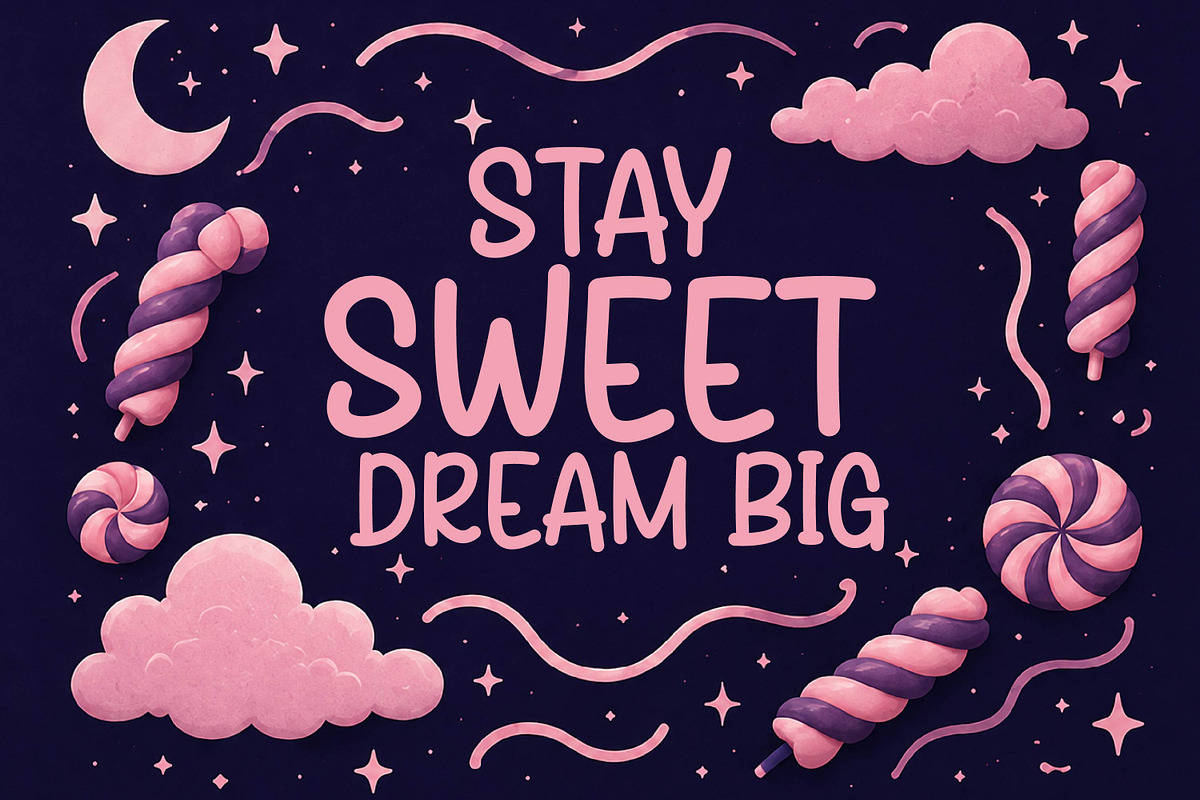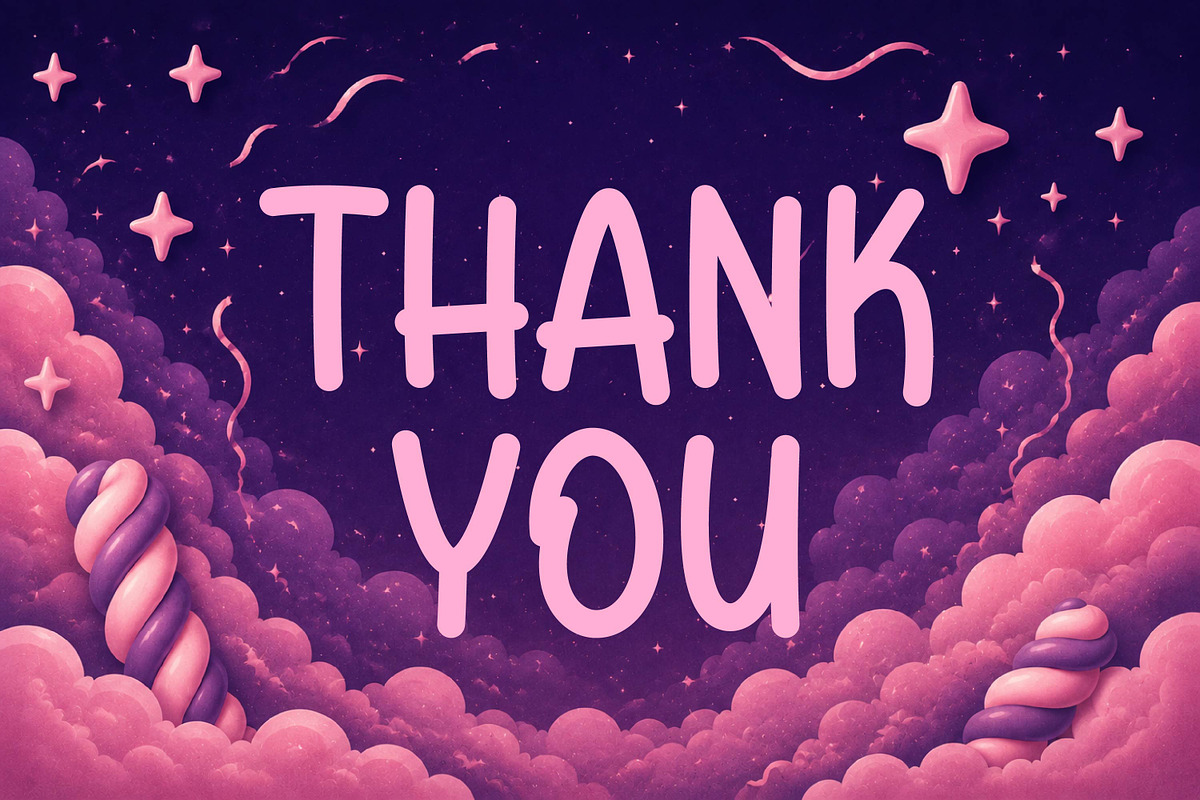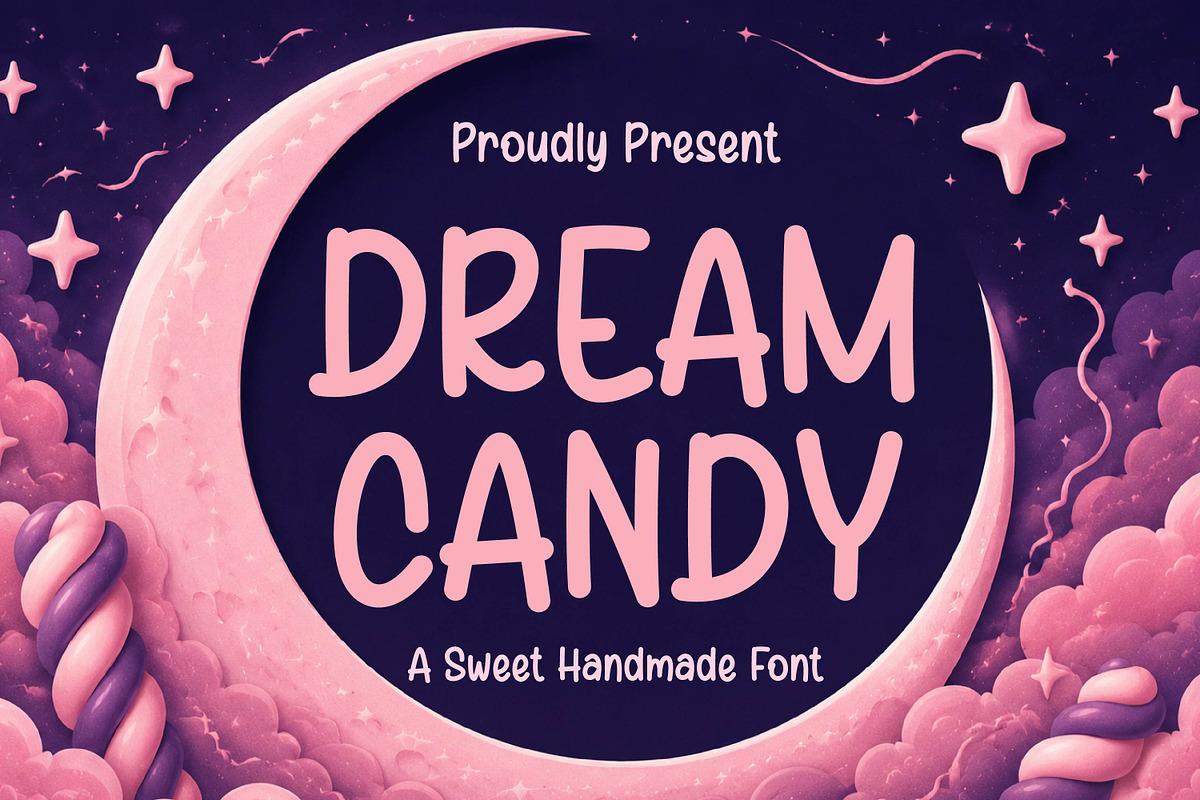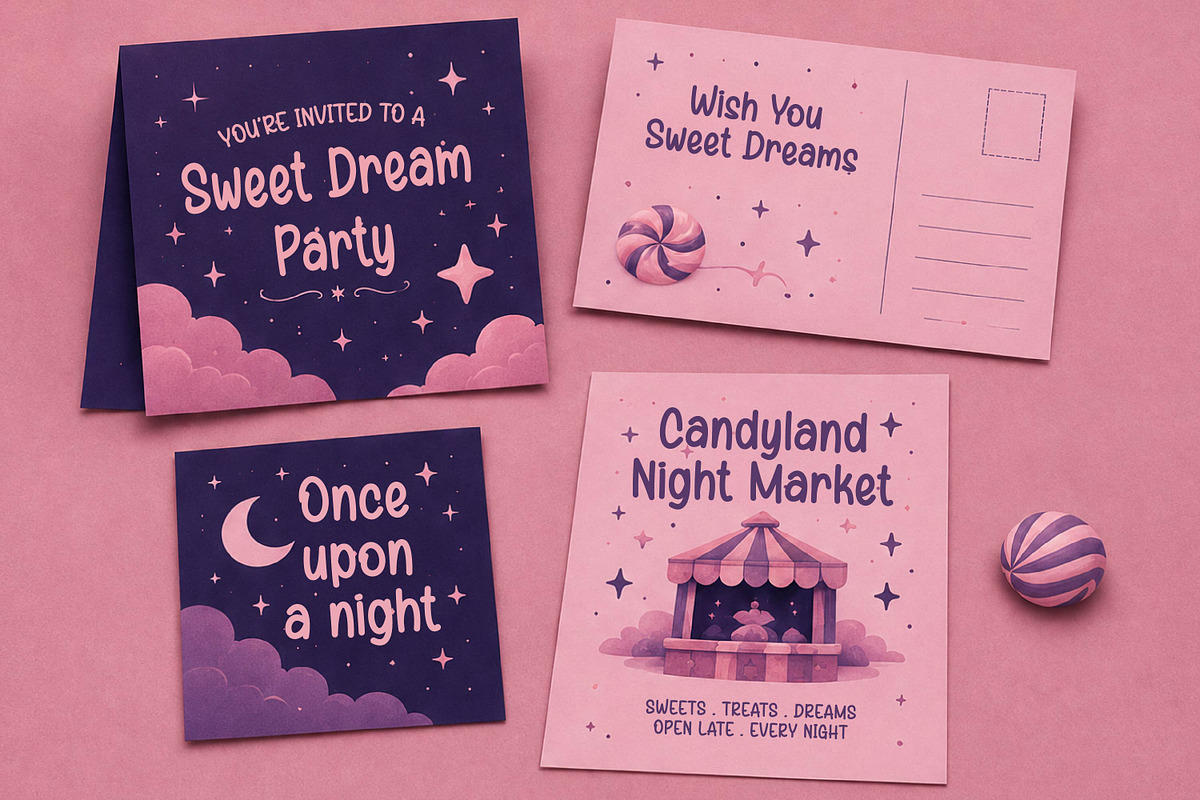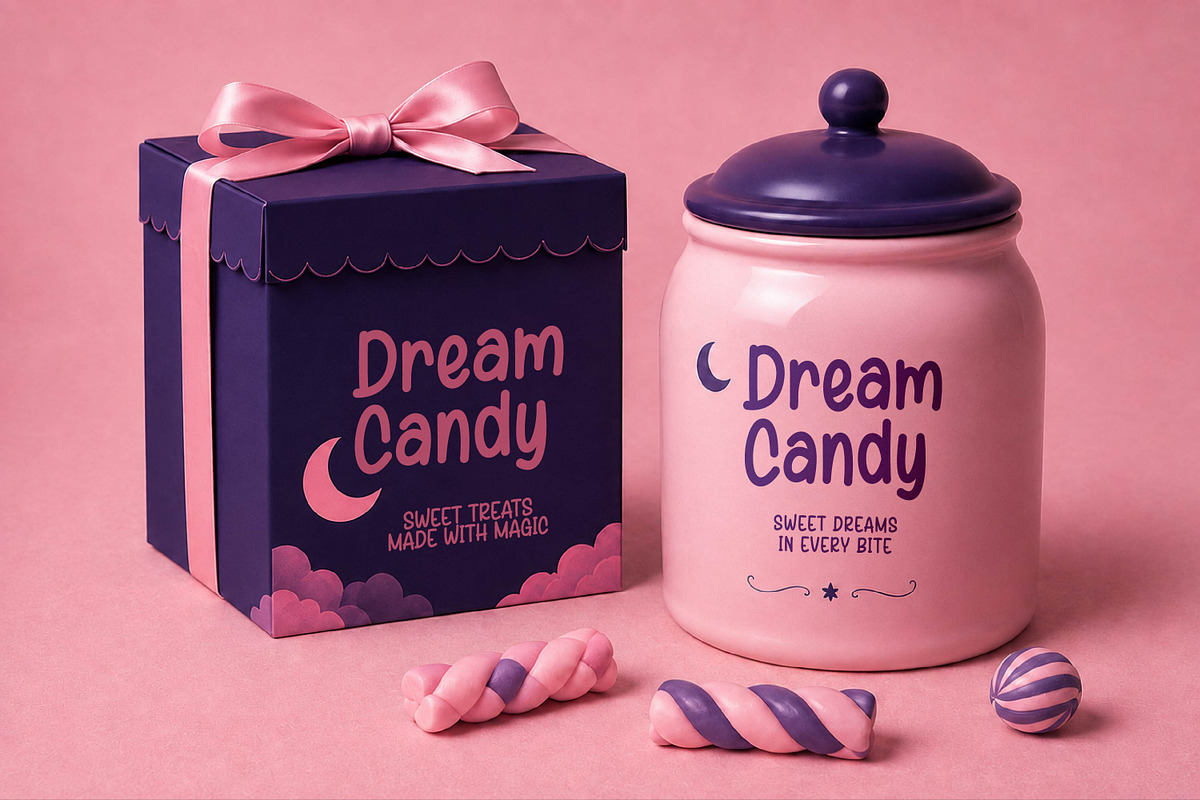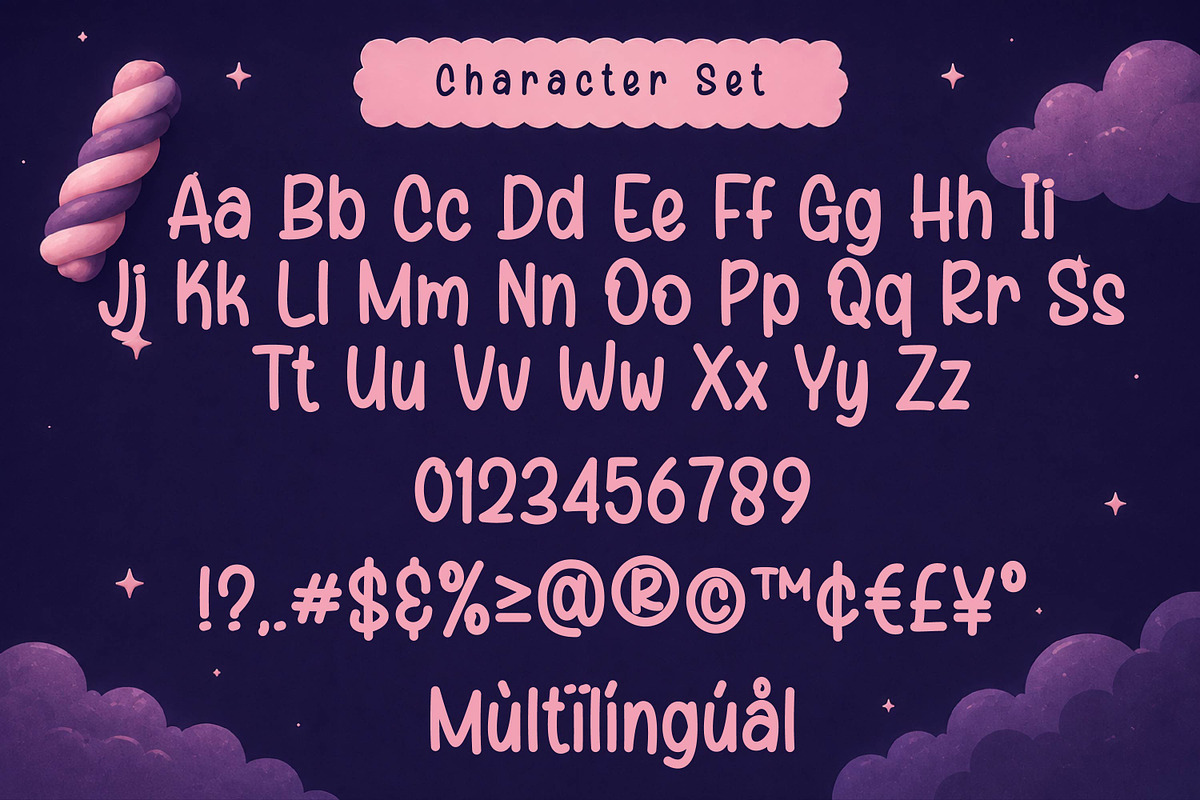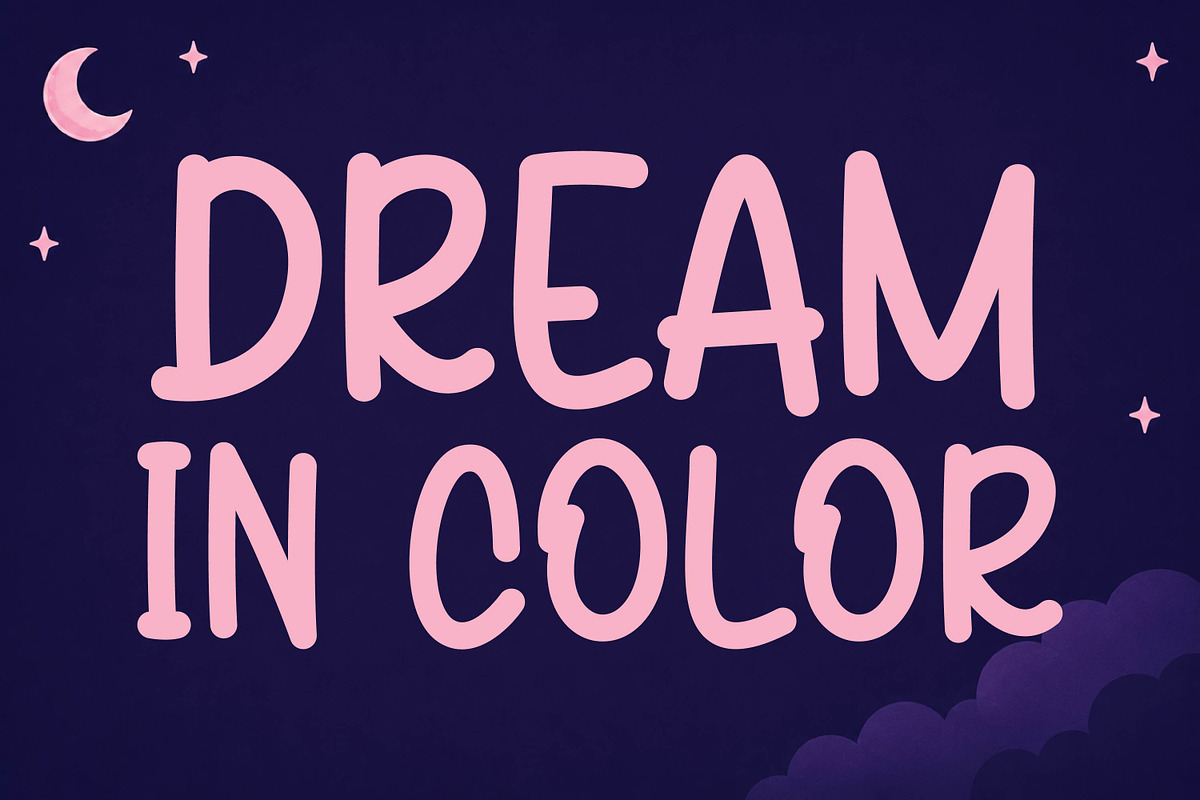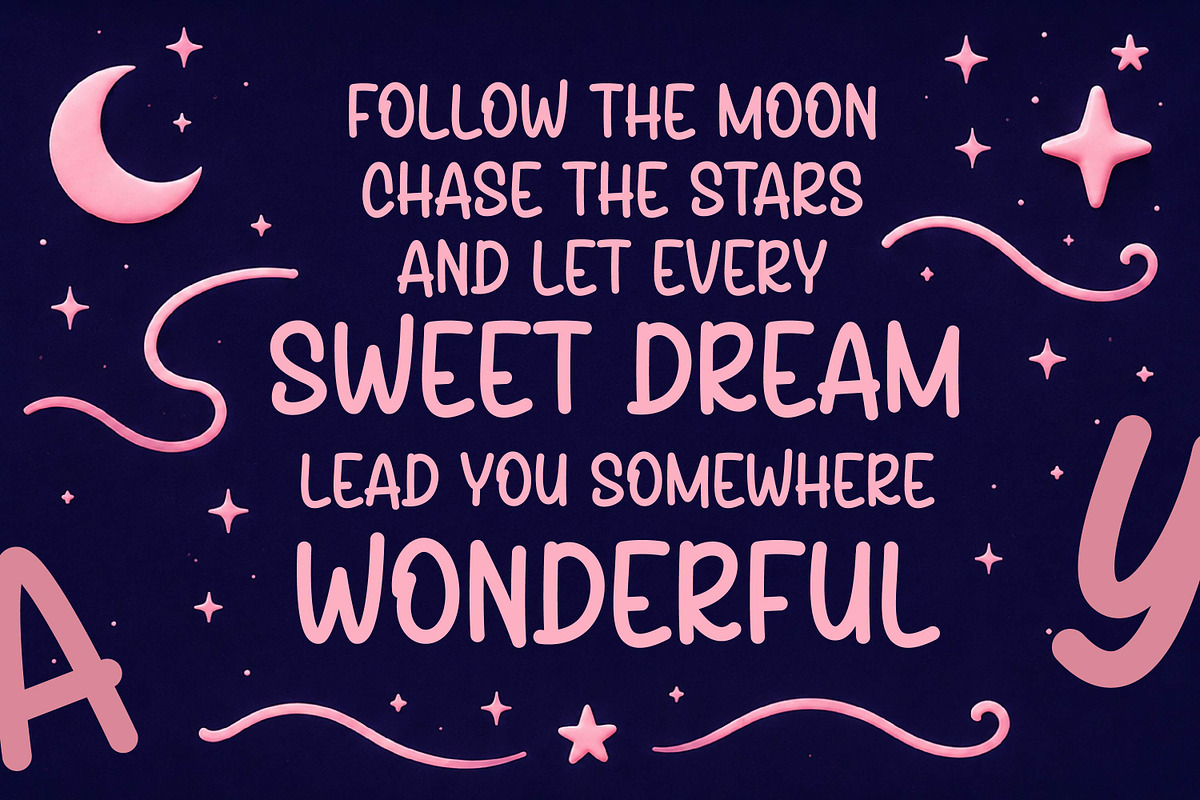
Dream Candy - Sweet Handmade Display
Dream Candy - Sweet Handmade Display Font
Dream Candy is a sweet handmade display font with soft, playful letterforms and a charming whimsical personality. Perfect for kids designs, storybooks, posters, invitations, packaging, branding, crafts, and magical projects that need a warm and dreamy touch.